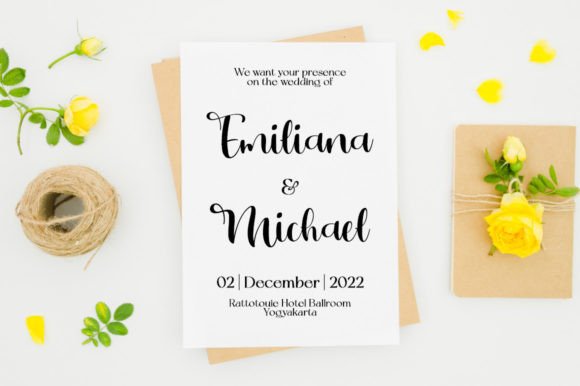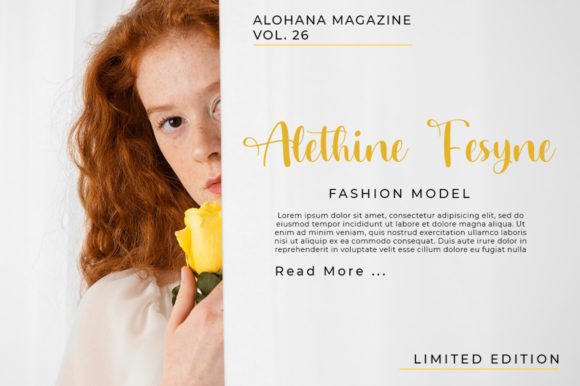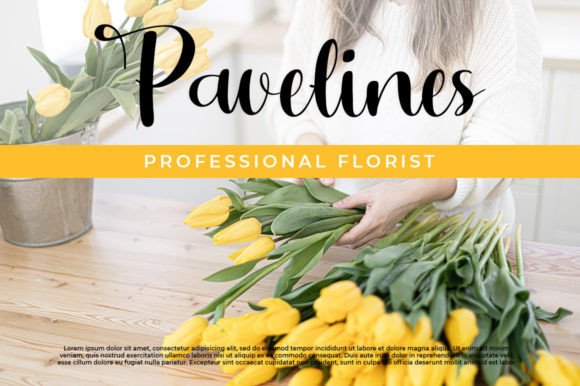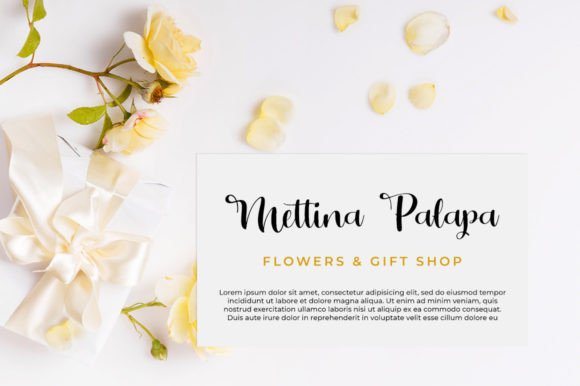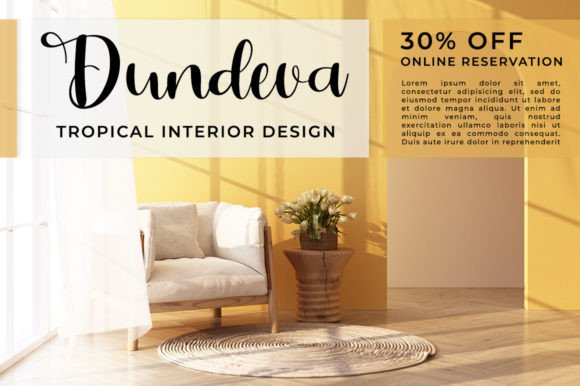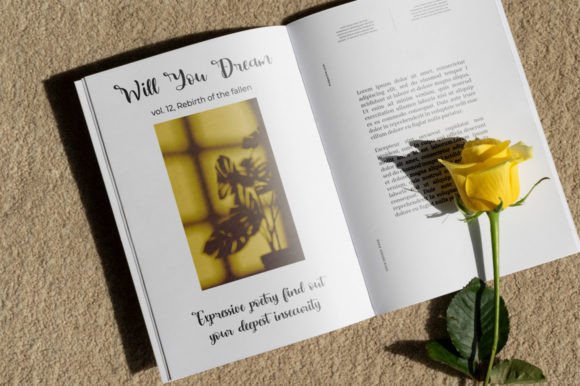
Introducing Handina Font: The Ultimate Romantic Calligraphy Typeface
Are you a designer or crafter looking for a font that adds a touch of luxury and romance to your design projects? Look no further than Handina Font! This beautiful calligraphy typeface is designed to make your designs stand out with its unique and elegant style. In this article, we’ll dive into the features and benefits of Handina Font, and explore how it can elevate your design projects to the next level.
A Romantic and Sweet Calligraphy Typeface
Handina Font is a romantic and sweet calligraphy typeface that is sure to capture the hearts of designers and crafters alike. Its characters are designed to dance along the baseline, creating a sense of movement and fluidity that is both visually appealing and engaging. With its elegant and refined style, Handina Font is perfect for a wide range of design projects, from wedding invitations and stationery to branding and packaging.
Adding a Luxury Spark to Your Designs
Handina Font is designed to add a luxury spark to any design project. Its unique and elegant style is sure to make your designs stand out from the crowd, and its romantic and sweet feel is perfect for creating a sense of sophistication and refinement. Whether you’re designing a logo, creating a brochure, or crafting a social media post, Handina Font is the perfect choice for adding a touch of luxury and elegance to your designs.
Features and Benefits of Handina Font
So, what makes Handina Font so special? Here are just a few of its key features and benefits:
- Unique and elegant style: Handina Font has a unique and elegant style that is sure to make your designs stand out.
- Romantic and sweet feel: Its romantic and sweet feel is perfect for creating a sense of sophistication and refinement.
- Perfect for a wide range of design projects: Handina Font is perfect for a wide range of design projects, from wedding invitations and stationery to branding and packaging.
- Easy to use: Handina Font is easy to use and can be easily integrated into your design projects.
- High-quality design: Handina Font is designed to high-quality standards, ensuring that your designs look professional and polished.
How to Use Handina Font in Your Design Projects
Using Handina Font in your design projects is easy! Here are a few tips to get you started:
- Pair it with a simple font: Pair Handina Font with a simple font to create a beautiful contrast and add visual interest to your designs.
- Use it for headings and titles: Use Handina Font for headings and titles to add a touch of luxury and elegance to your designs.
- Experiment with different colors: Experiment with different colors to find the perfect combination that works for your design project.
- Use it for branding and packaging: Use Handina Font for branding and packaging to create a cohesive and professional look.
In conclusion, Handina Font is a romantic and sweet calligraphy typeface that is sure to add a luxury spark to any design project. With its unique and elegant style, perfect for a wide range of design projects, and easy to use, Handina Font is a must-have for designers and crafters alike. Whether you’re designing a logo, creating a brochure, or crafting a social media post, Handina Font is the perfect choice for adding a touch of luxury and elegance to your designs.